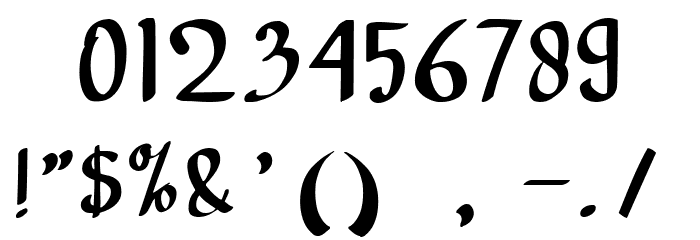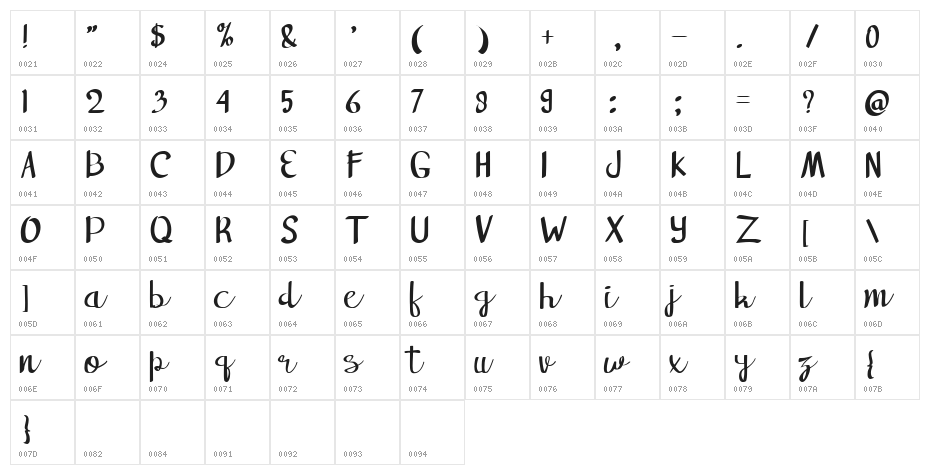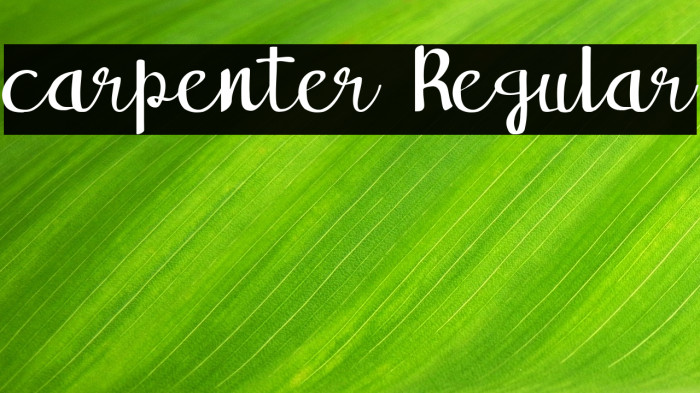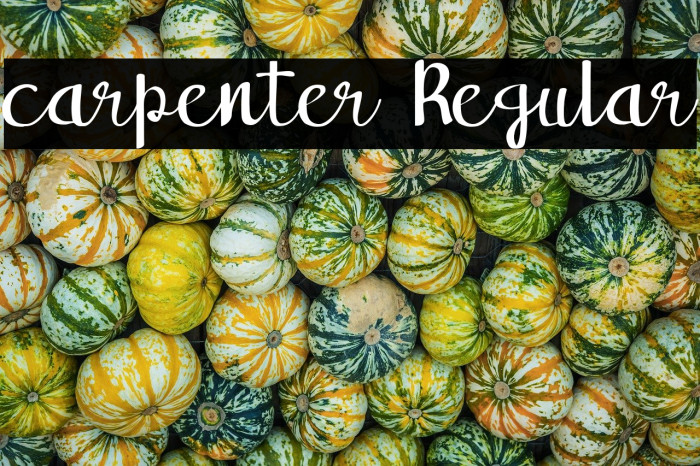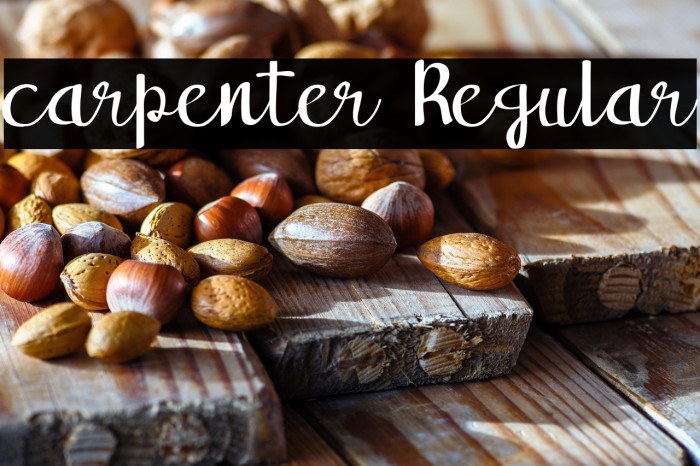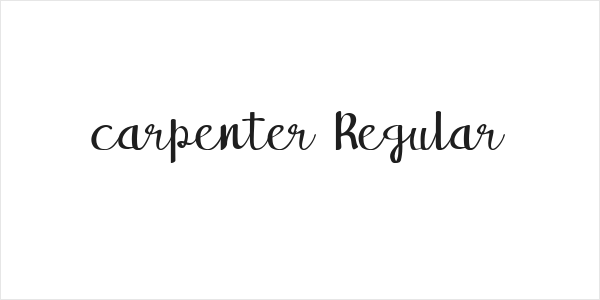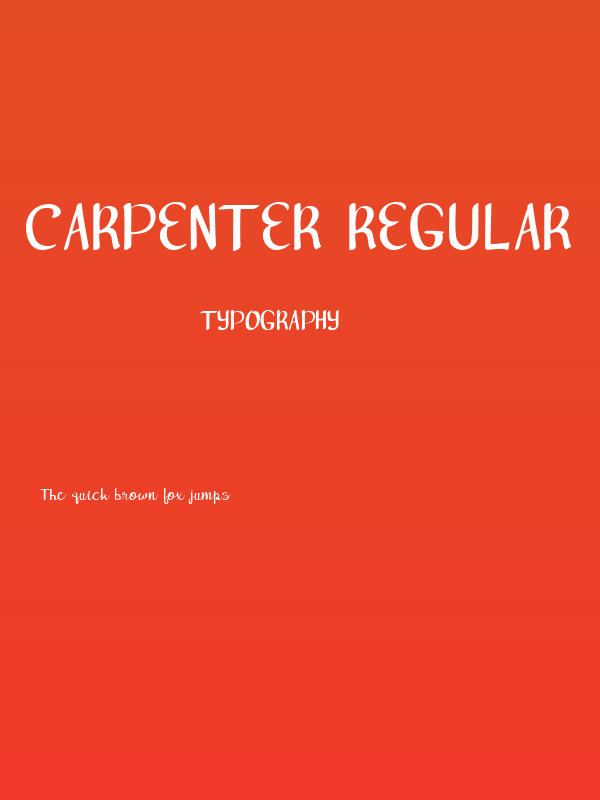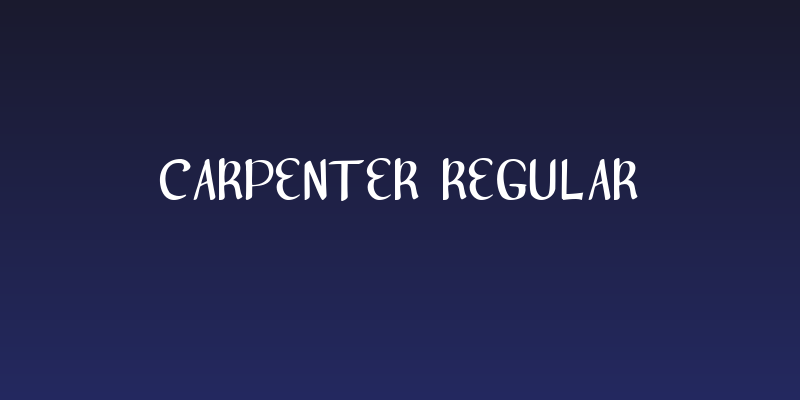
carpenter Regular Font
carpenter Regular Description
This font features a playful and dynamic style with a handwritten appearance. The uppercase letters are bold and slightly condensed, giving them a strong presence. The lowercase letters have a flowing, cursive quality, adding a touch of elegance and movement. The numerals are consistent with the overall style, maintaining the same boldness and slight slant. Special characters are creatively designed, complementing the font's unique aesthetic. The overall look is both modern and artistic, making it suitable for creative projects.